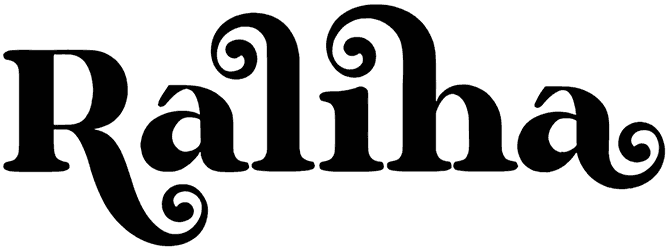
Black Forest Font
Do you want a lettering that is not simple but chic? This whimsical font with its soft visual has this kind of mood. Black Forest will be a ravishing adornment for your words to become more impressive. Our fancy font collection on the RB website provided you with a great chance.
Designed by: Dedi Mujiono